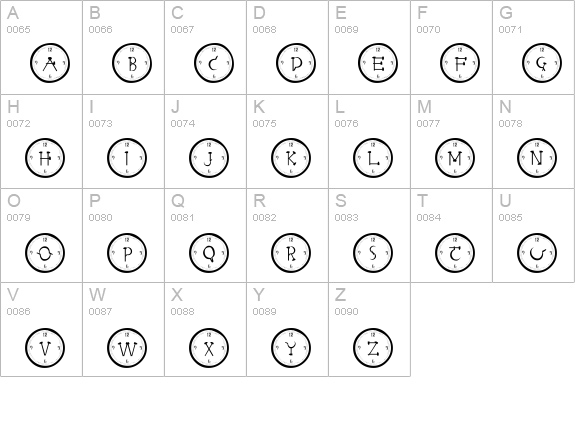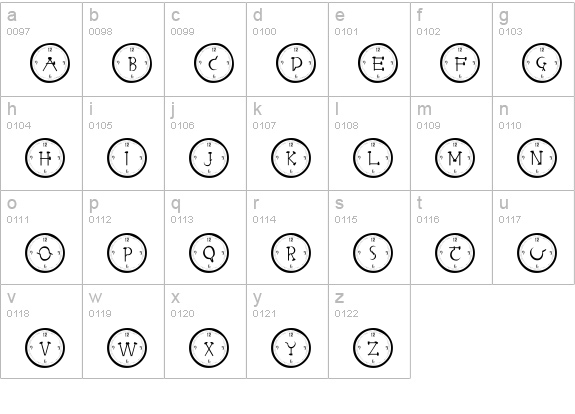
Introducing the exquisite 101! Clock Face font, a stunning display of elegance and sophistication. This unique font features intricate details inspired by classic clock faces, creating a timeless and refined look. With its meticulously crafted design, 101! Clock Face font is perfect for adding a touch of sophistication to your projects. What sets this font apart is not only its impeccable design but also its versatility. Whether you're working on a vintage-inspired project or a modern design, 101! Clock Face font will elevate your work to new heights. And the best part? This exceptional font is available for free download at FontsMarket.com. Now you can add this premium font to your collection without breaking the bank. Don't miss out on the opportunity to enhance your designs with the elegance of 101! Clock Face font. Download it today and let your creativity shine!